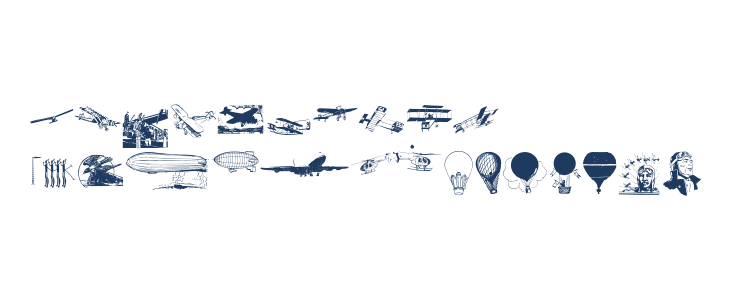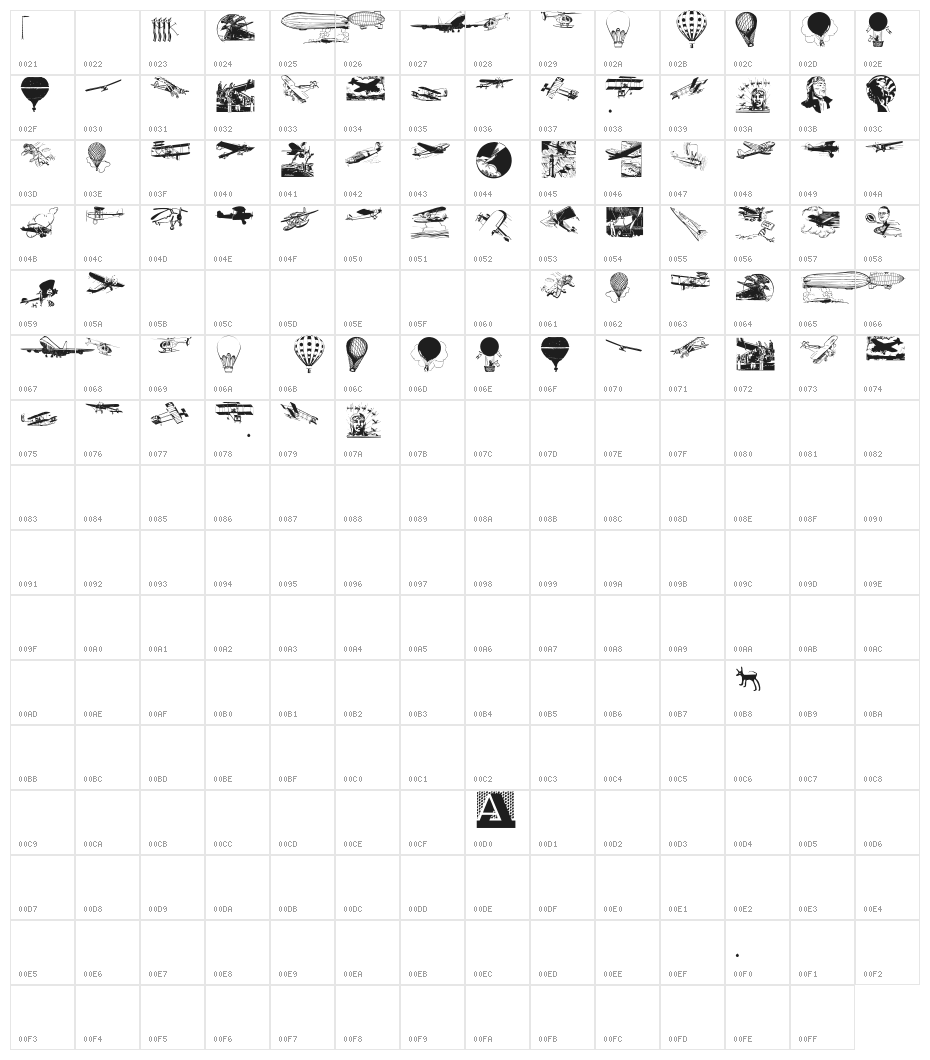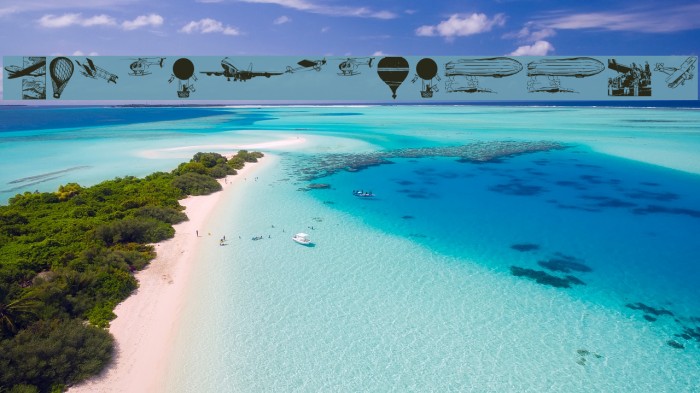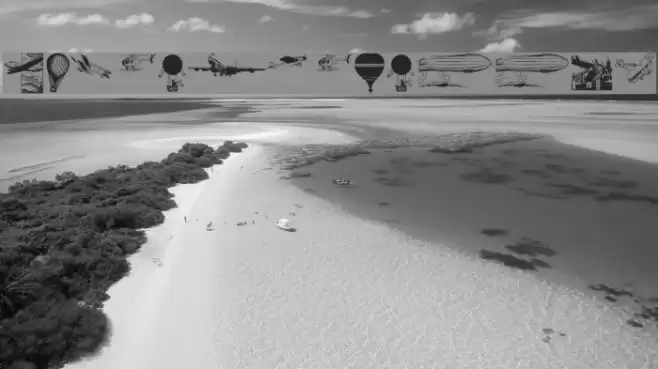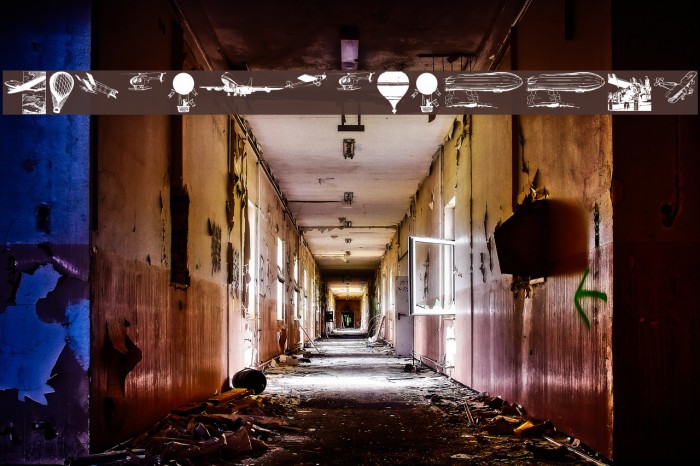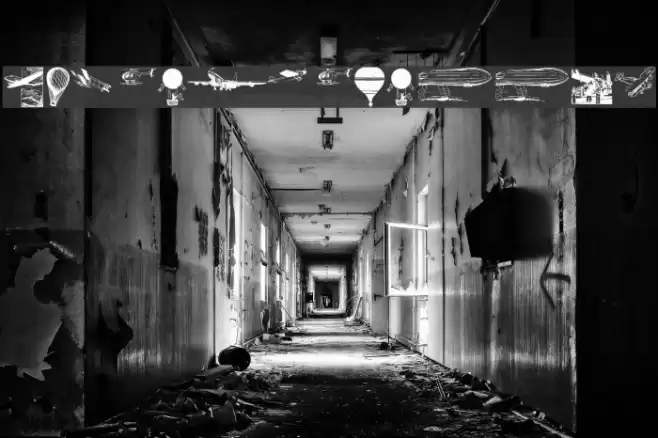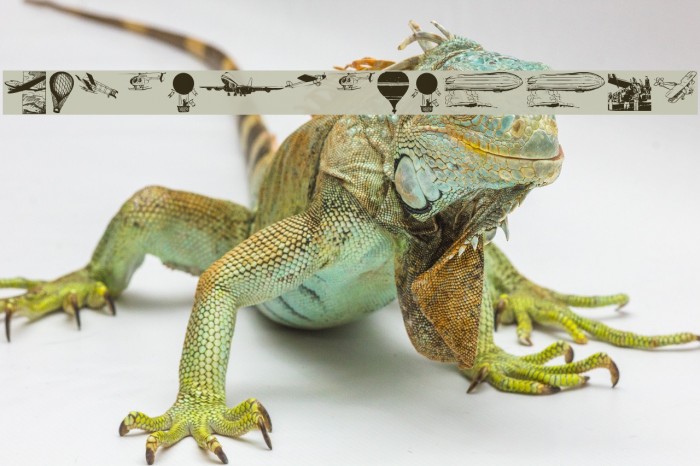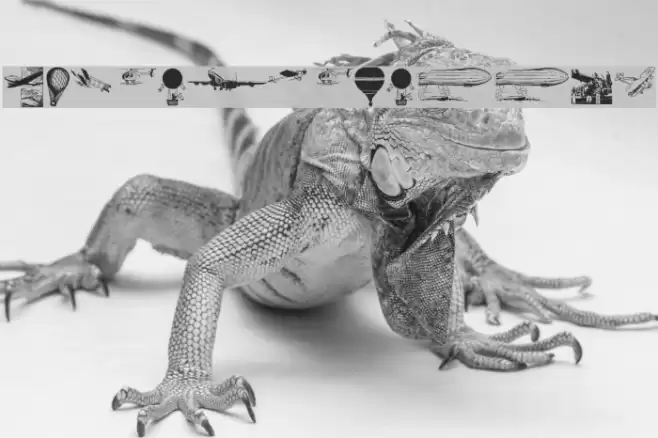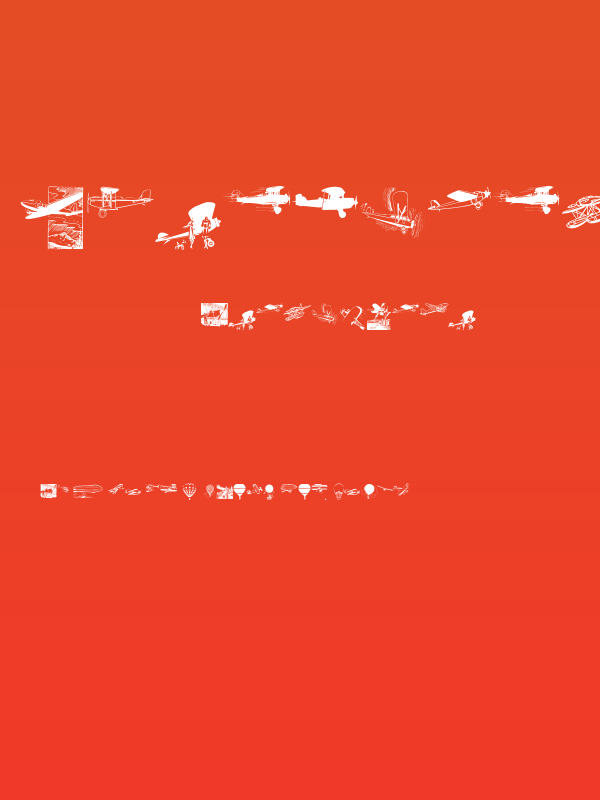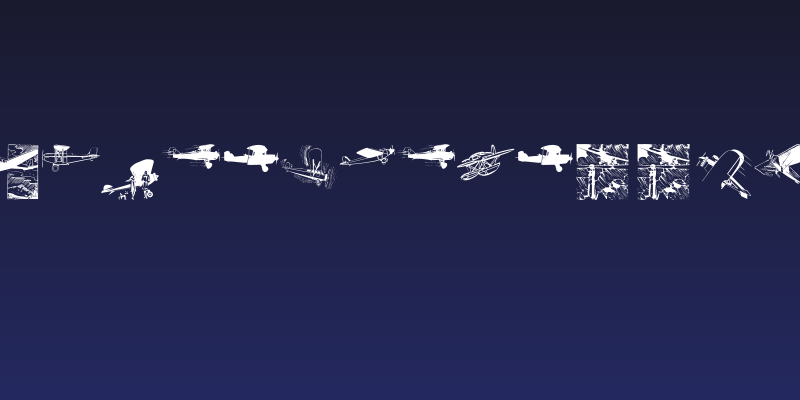
FlyingPioneers Font
FlyingPioneers Description
This collection features a series of intricate and detailed illustrations of various flying machines, capturing the essence of aviation history. Each character is represented by a unique aircraft or flying device, ranging from vintage biplanes to modern jets and hot air balloons. The style is reminiscent of classic aviation posters, with a focus on line art and shading to convey depth and dimension. The illustrations are highly detailed, making them suitable for projects that require a touch of nostalgia or a celebration of aviation history.
| Use Case | Logos, Posters, Educational Materials |
| Proposed Projects | Ideal for aviation-themed posters, educational materials, historical documentaries, and vintage-style graphic designs. |